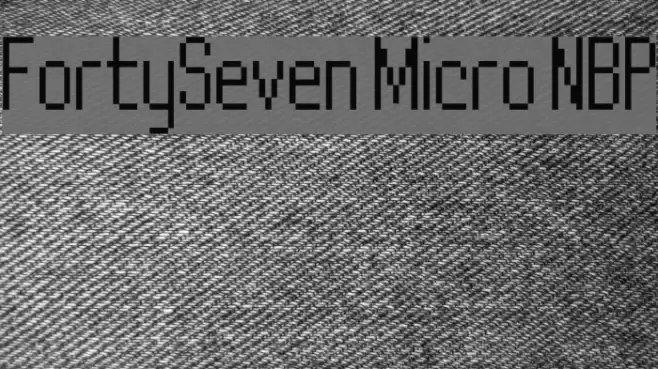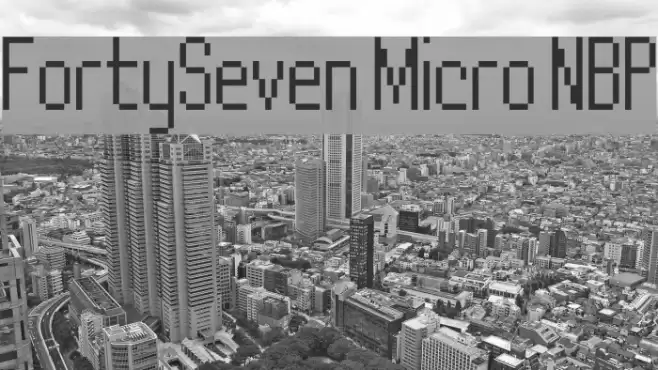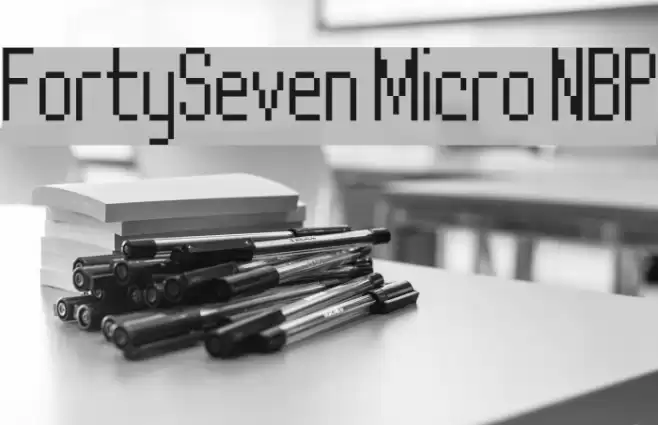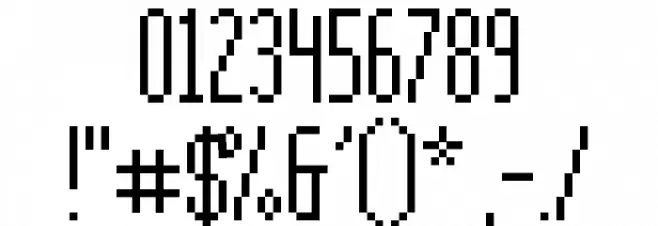
FortySeven Micro NBP Font
FortySeven Micro NBP Description
This font features a pixelated, grid-like structure reminiscent of early digital displays and retro video games. The characters are composed of uniform square blocks, giving it a distinctly digital and technical appearance. The uppercase and lowercase letters maintain a consistent height, with the lowercase being slightly more compact. Numbers and special characters follow the same blocky style, ensuring uniformity across all glyphs. The design is straightforward and geometric, emphasizing clarity and readability in small sizes, making it ideal for digital interfaces or retro-themed projects.
A pixelated, grid-based font with a retro digital aesthetic from Uncategorized fonts.
- Proposed Projects: Ideal for retro video game designs, digital interfaces, tech-themed posters, or any project requiring a nostalgic digital look.
- Character Spacing: Tight
- Overall Style: Retro, Digital
- Use Case: Headlines, Digital displays, Retro games